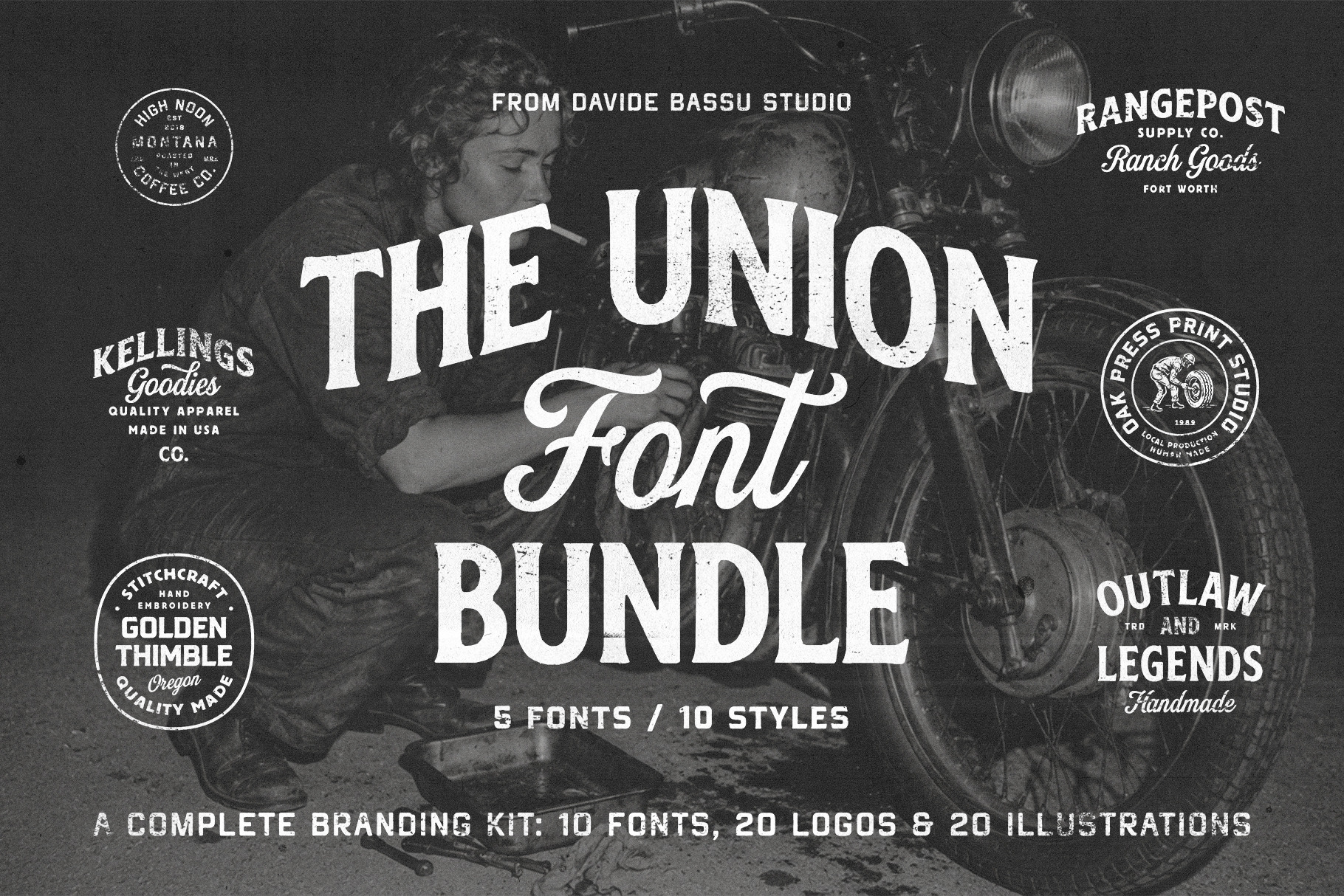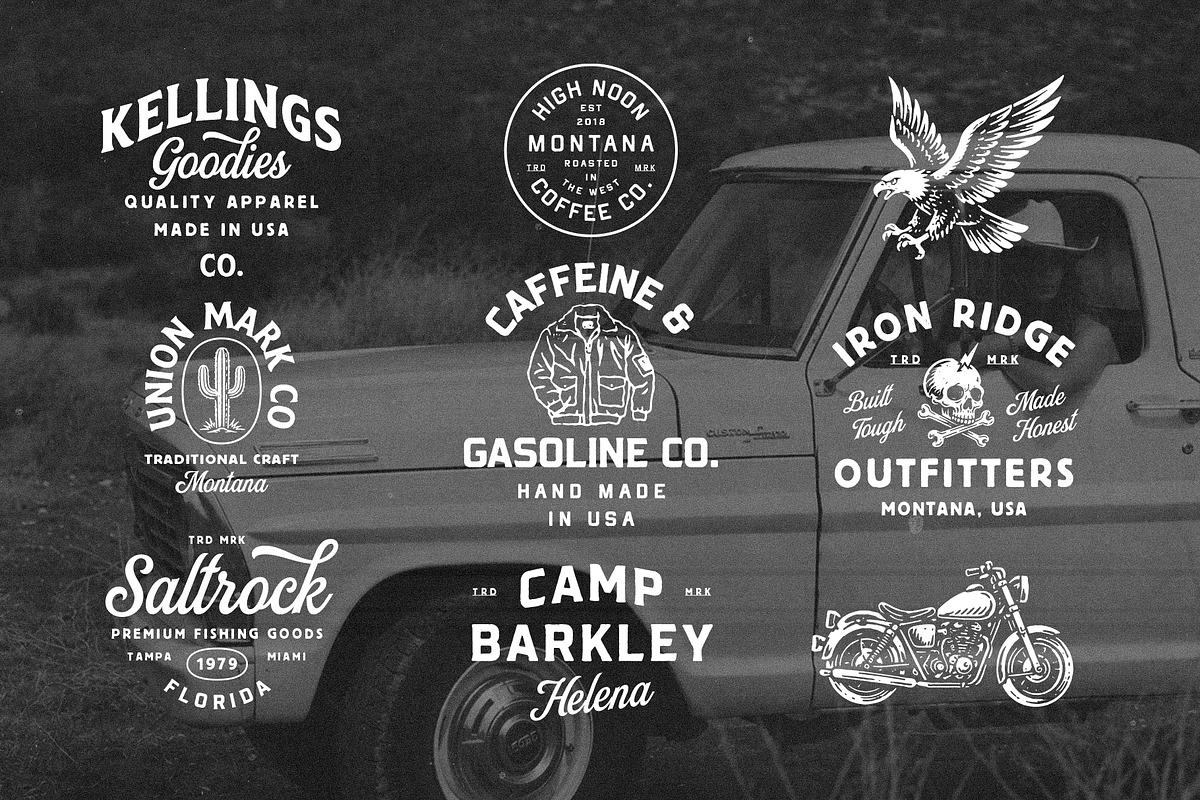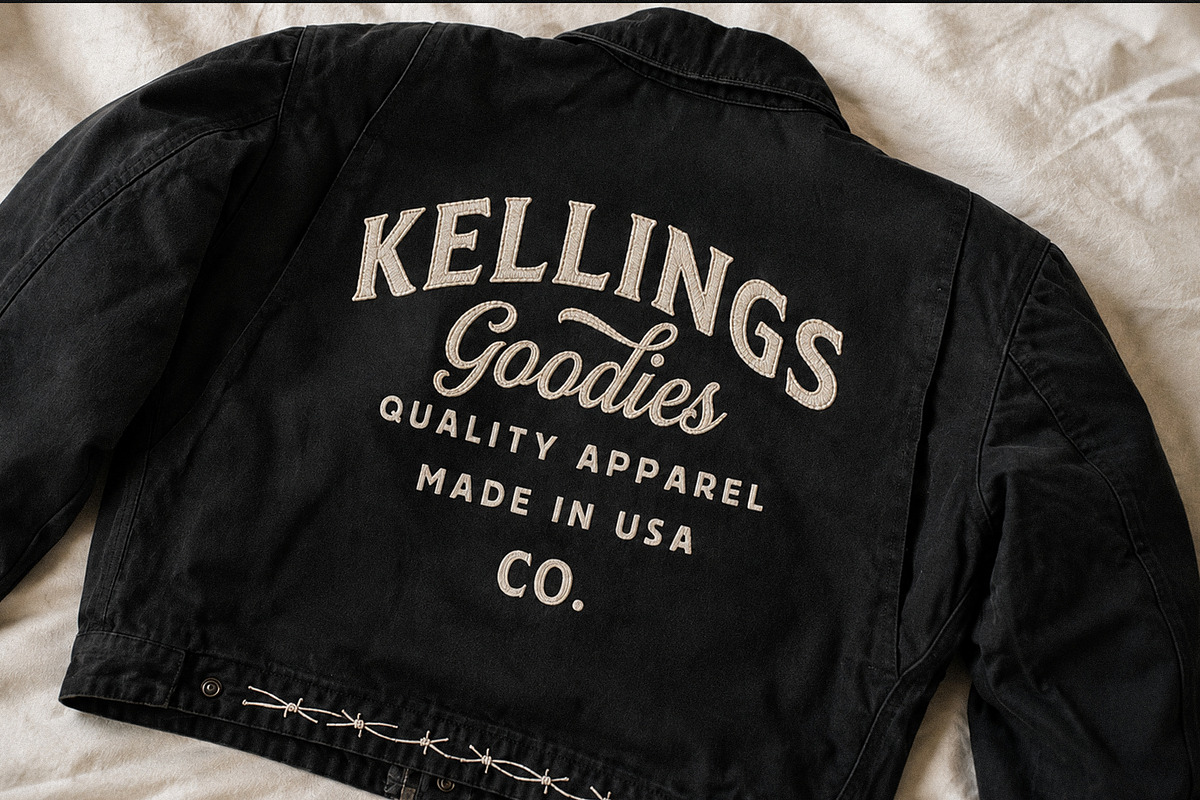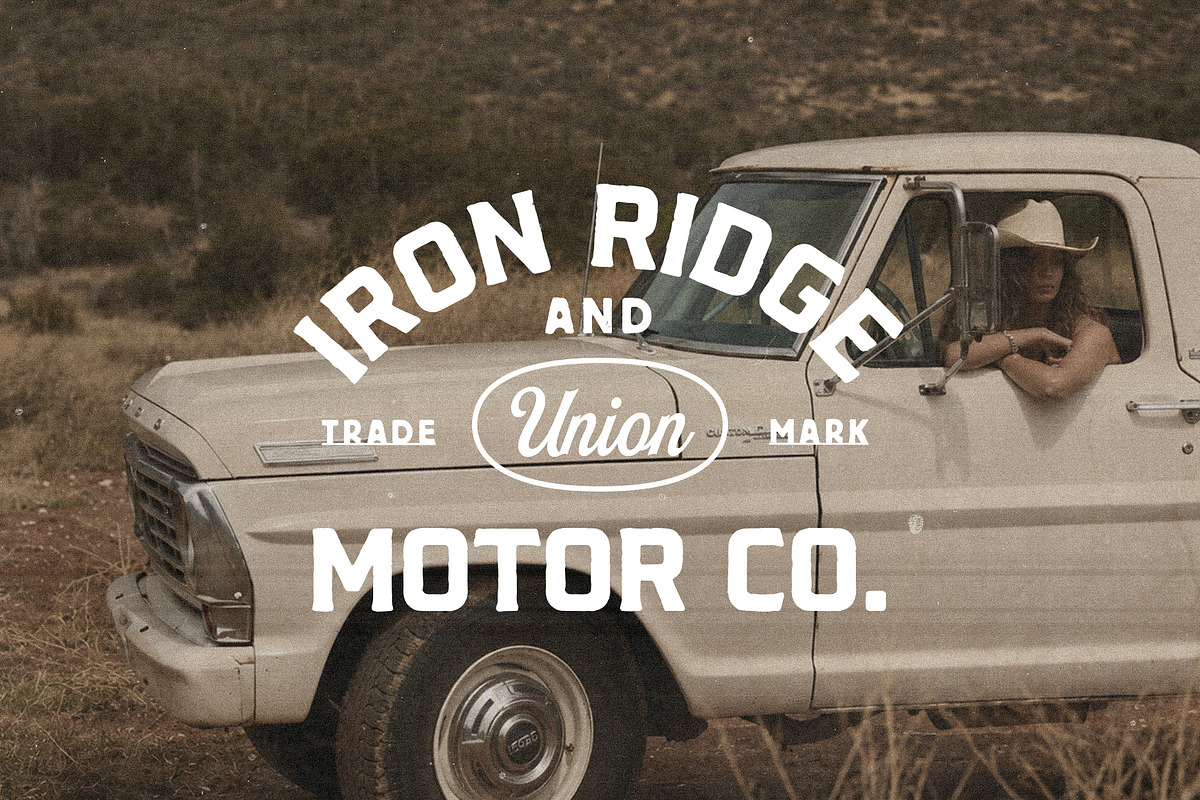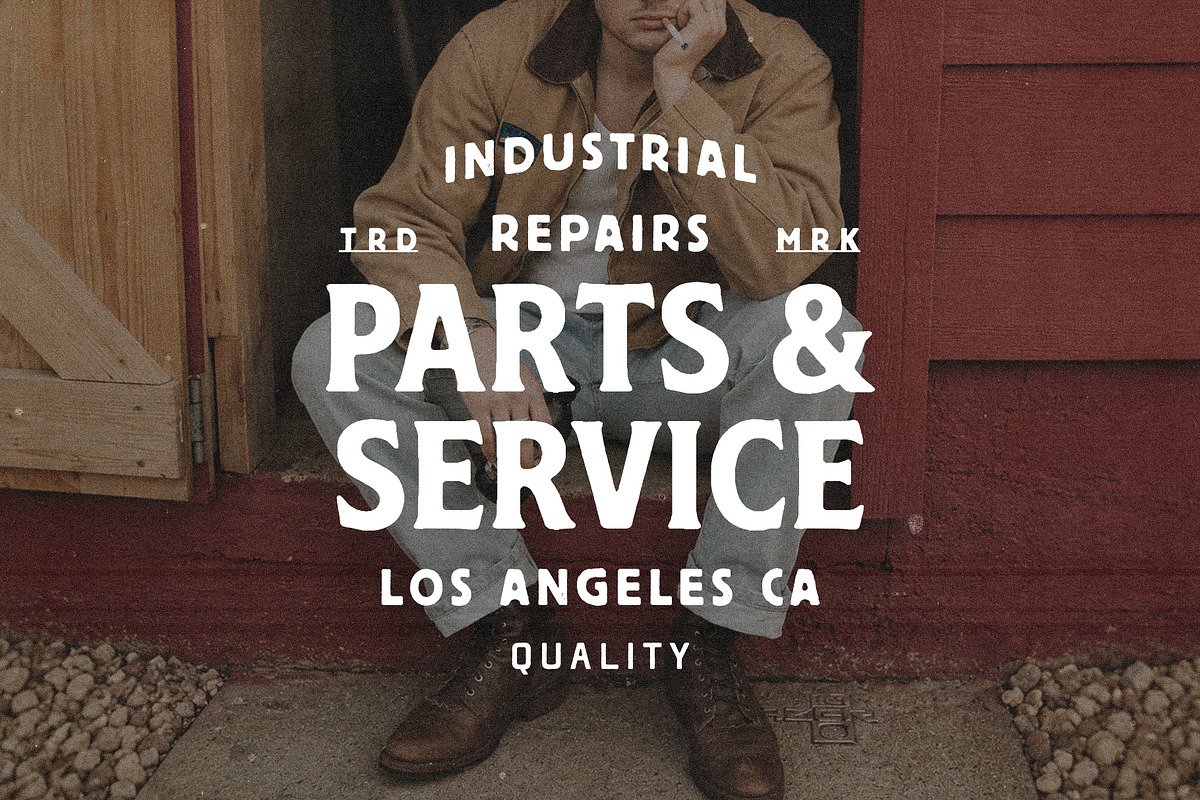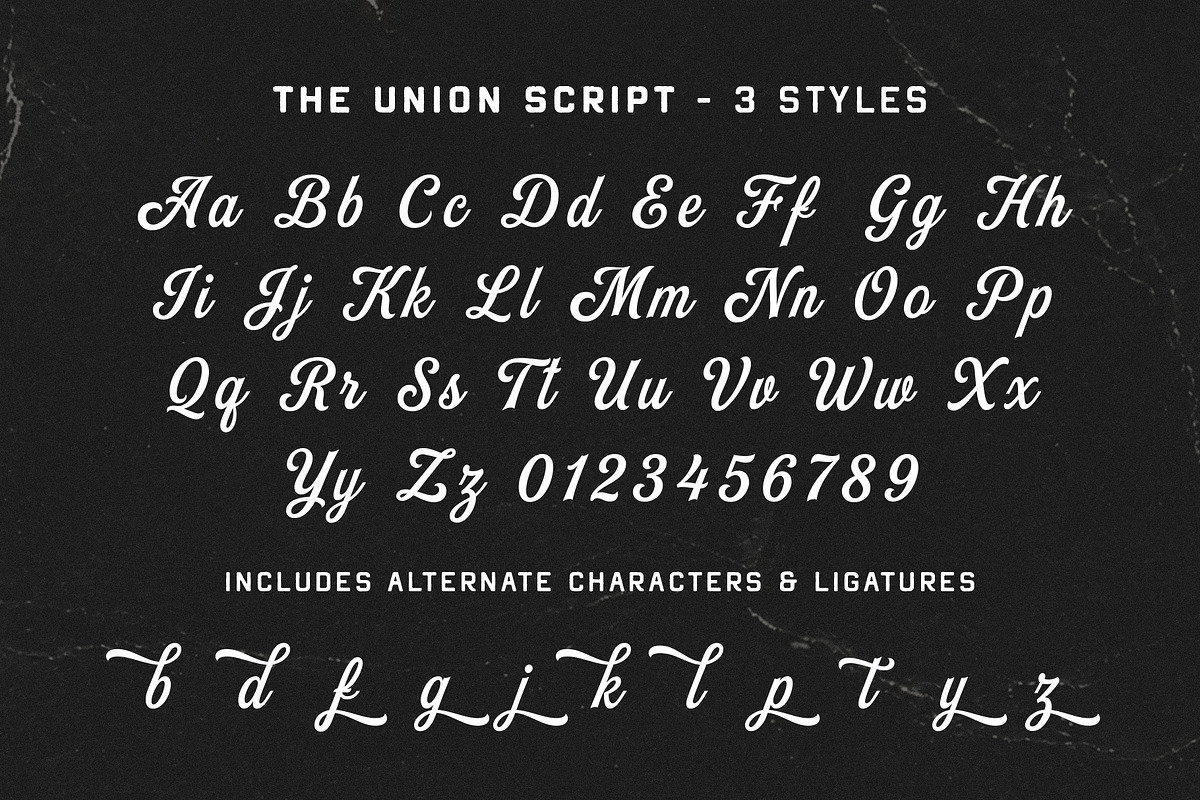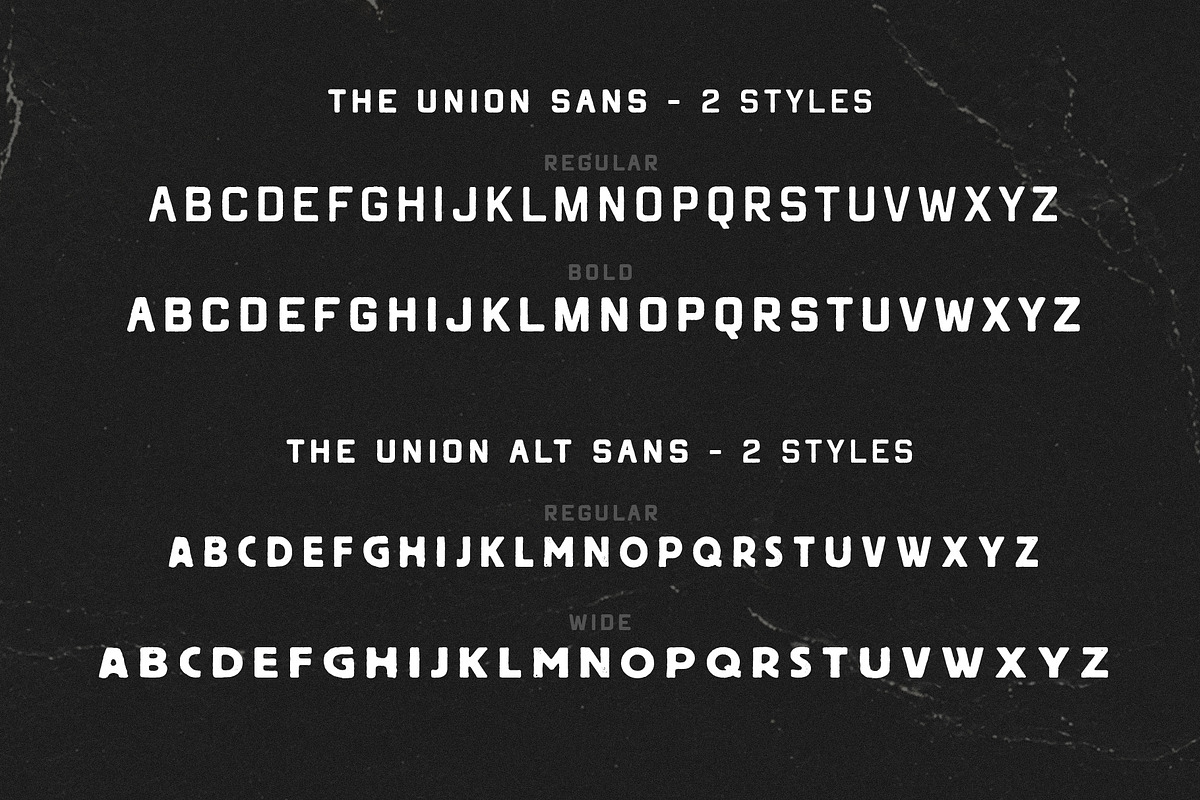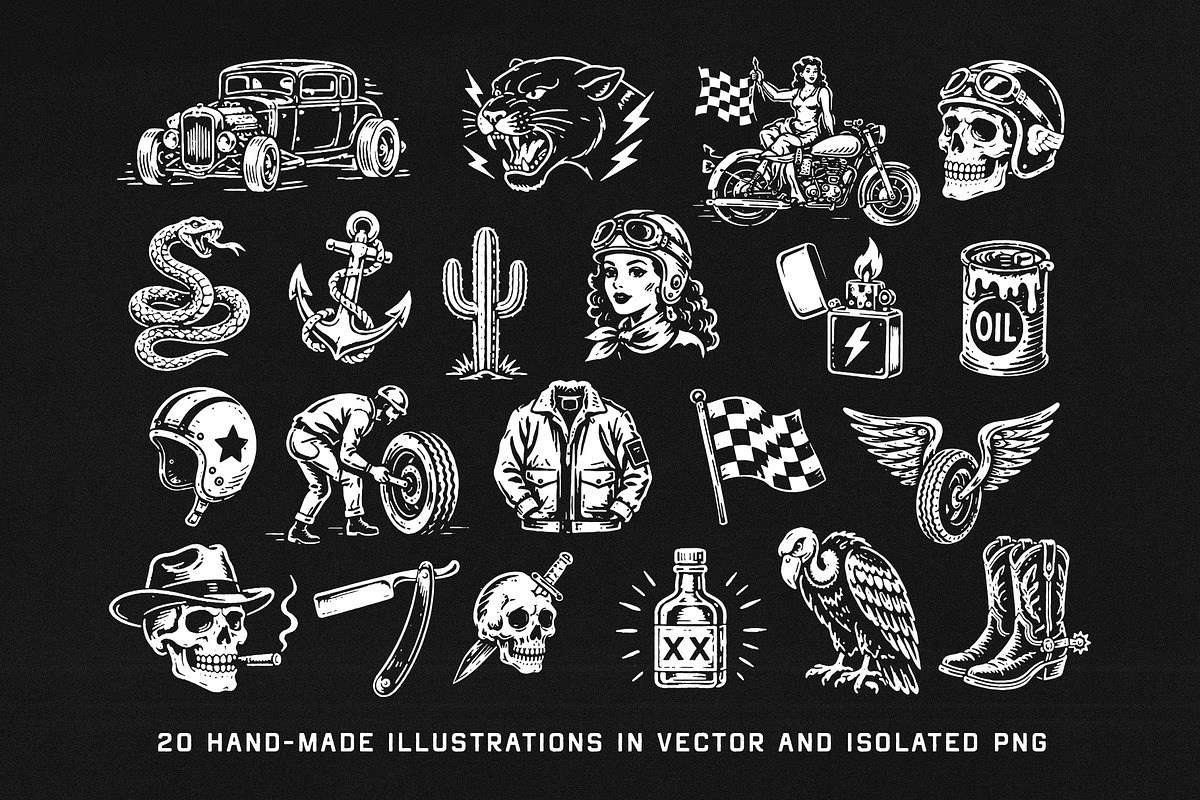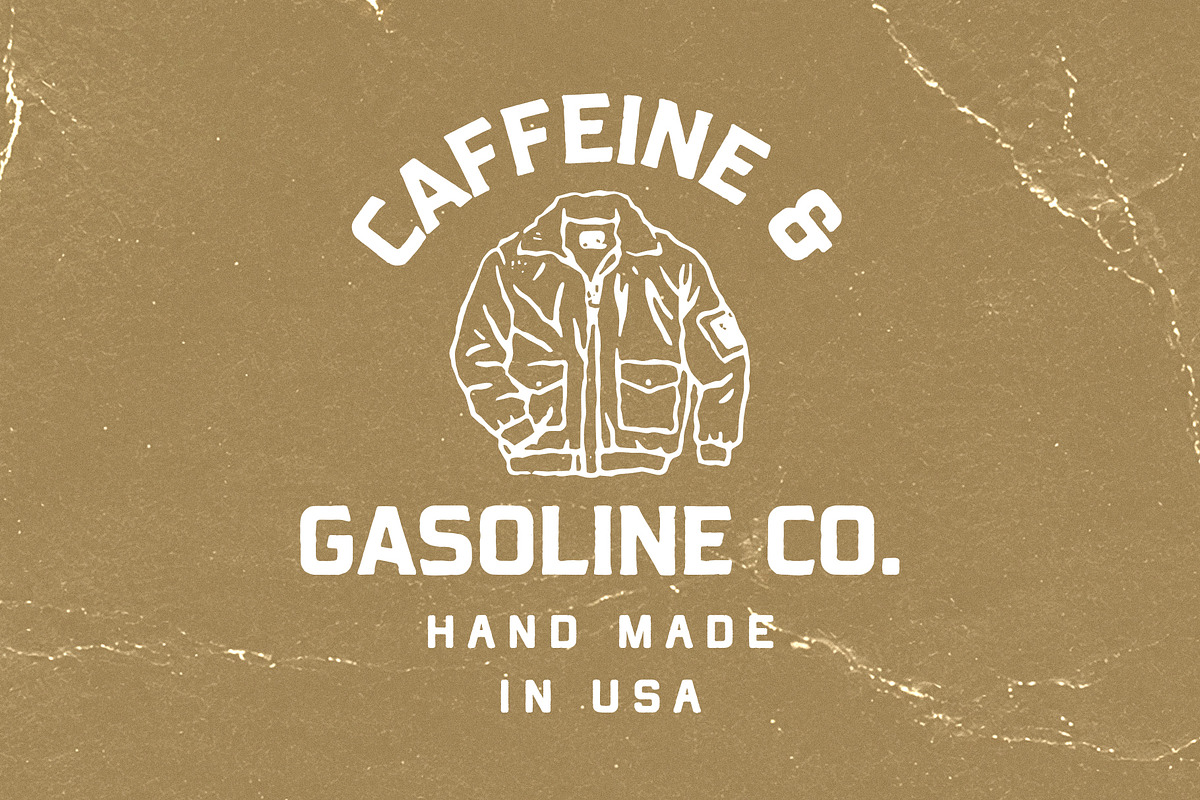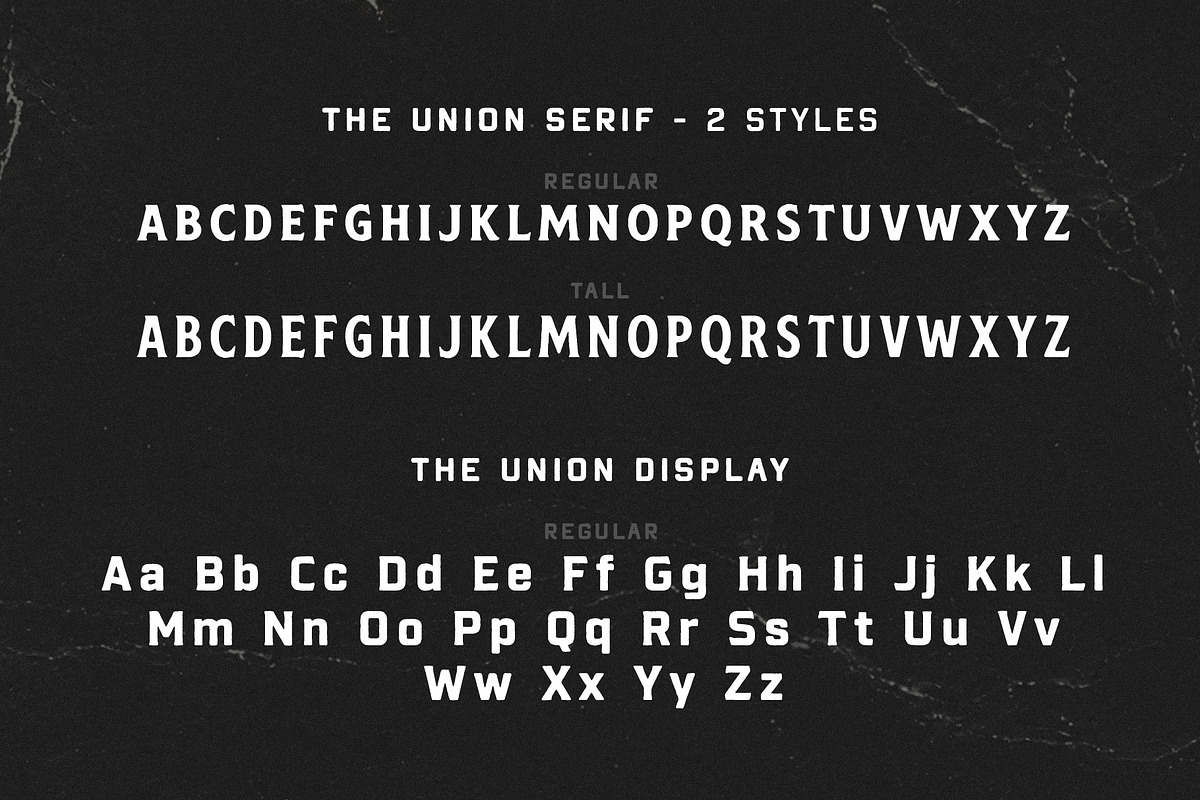
The Union Font Bundle + Extra
Introducing The Union Font Bundle, a complete collection of handcrafted typefaces, vintage logo templates, and retro illustrations inspired by classic American workwear, motorcycle culture, ranch brands, and heritage craftsmanship.
Built for designers who love authentic vintage aesthetics, this bundle combines bold display serifs, rugged sans serifs, and expressive script fonts to help you create logos, apparel graphics, packaging, signage, social media content, and branding projects with ease.
Every element was carefully designed to work together, allowing you to mix fonts, logos, and illustrations into a cohesive visual identity. Whether you're creating a western-inspired clothing brand, a coffee roaster, a motorcycle workshop, an outdoor company, or a handcrafted product line, The Union Bundle provides everything you need to build a timeless brand system.
The collection includes 5 font families (10 styles total), a versatile set of 20 editable vintage logo templates, and 20 hand-drawn illustrations featuring classic Americana-inspired elements such as motorcycles, eagles, skulls, snakes, workwear, western icons, racing graphics, and more.
Apparel and merchandise design
Logo and badge creation
Western and ranch branding
Motorcycle and automotive projects
Coffee shops and breweries
Outdoor and workwear brands
Packaging and labels
Posters and editorial design
5 Font Families
10 Font Styles
20 Vintage Logo Templates
20 Hand-Drawn Illustrations
Designed to capture the spirit of old workshops, dusty highways, ranch towns, and classic American craftsmanship, The Union Font Bundle gives you a complete toolkit for creating bold, authentic, and memorable vintage branding.